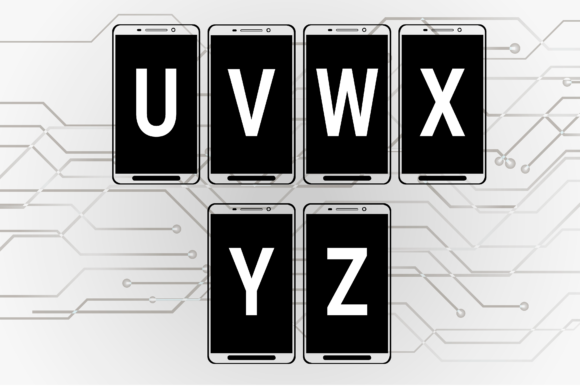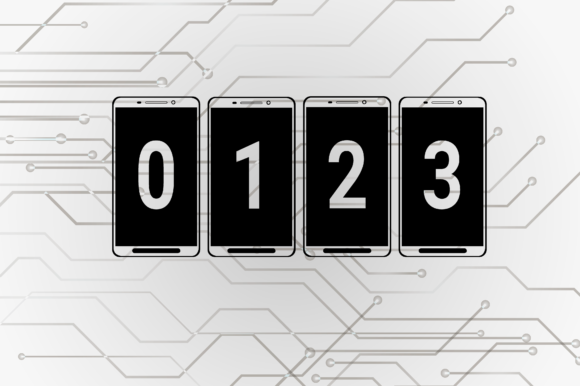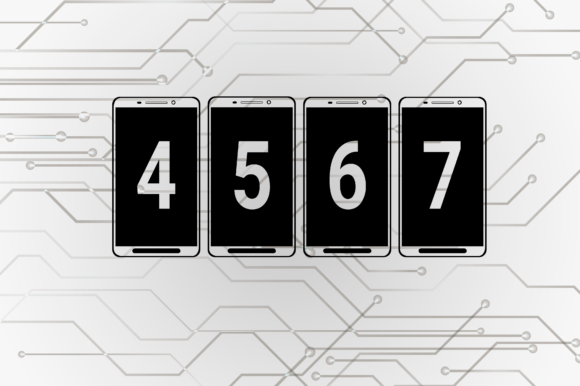
The DDroid Font: A Cool Decorative Font for Interactive Projects
I’ll never forget the time I was working on a project for a trendy new coffee shop. My client wanted a logo that was fun, modern, and would appeal to a young audience. I spent hours scouring font websites, but nothing seemed quite right. That was until I stumbled upon the DDroid font. It’s a cool decorative font that has become one of my go-to choices for interactive and dynamic projects.
An Honest Review of DDroid
- ✨ Unique and quirky design that’s perfect for brands that want to stand out
- ✅ Great for headlines, titles, and short paragraphs of text
- ✨ Works well with both light and dark backgrounds
While DDroid is an amazing font, it’s not without its quirks. For example:
- ⚠️ Some characters may not work well in all contexts, such as in long blocks of text
- 🤔 Limited availability of certain diacritical marks
The Story Behind DDroid
DDroid was designed by a team of creatives who wanted to create a font that was both fun and functional. Inspired by the world of technology and innovation, they crafted a font that’s perfect for interactive and dynamic projects. Whether you’re designing a logo, brand, or ad, DDroid is a great choice.
Q: What is the DDroid font?
A: DDroid is a cool decorative font that’s perfect for interactive and dynamic projects.
Q: What type of projects is DDroid best suited for?
A: DDroid works well for logos, brands, ads, and other projects that require a fun and modern look.
Q: Is DDroid easy to read?
A: Yes, DDroid is highly legible, even at small sizes.